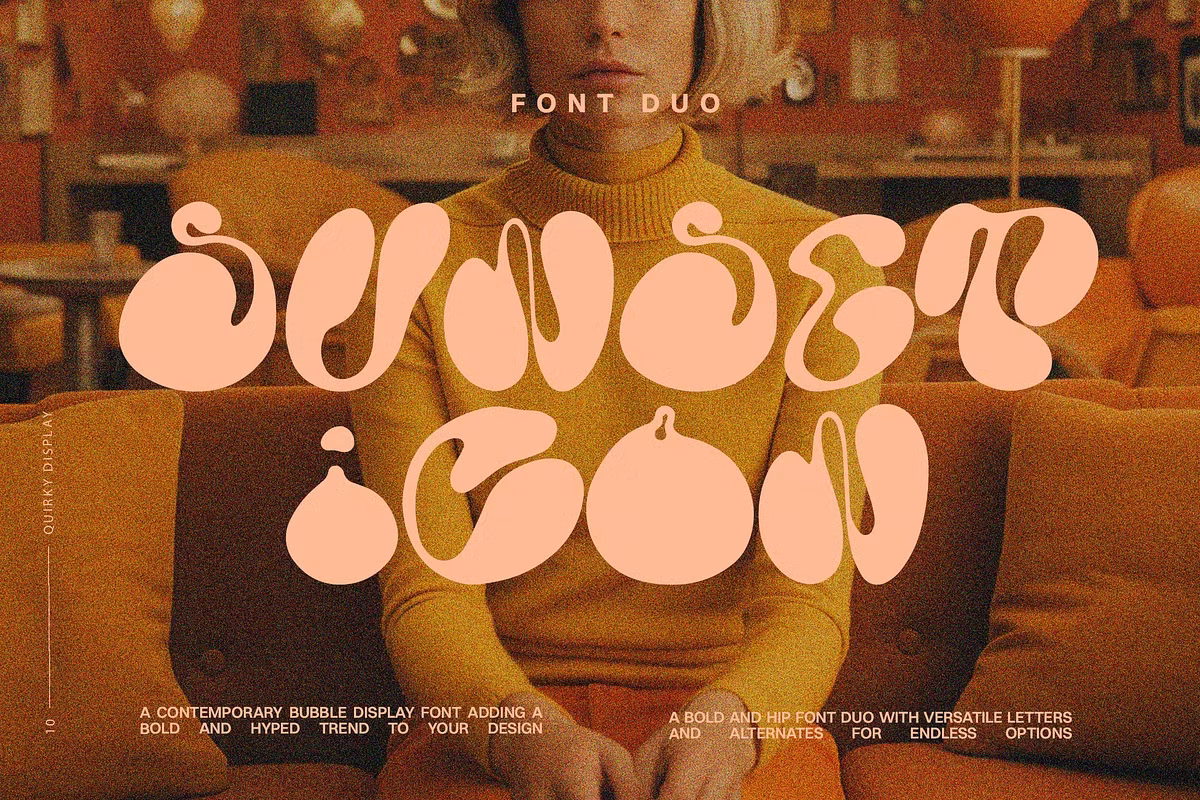
Sunset Icon Retro Bubble Font Duo Free Download
Sunset Icon Retro Bubble Font Duo Free Download is a playful and vibrant font pair that blends retro bubble lettering with a fun, contemporary icon style. Perfect for creating nostalgic, eye-catching designs, this duo is ideal for branding, event posters, product packaging, social media graphics, and anything that requires a bold, retro flair.
The font duo includes a bold bubble-style font alongside matching icons, giving you the flexibility to create unique, cohesive designs with a strong vintage aesthetic. Whether you’re designing for a retro-themed event, crafting fun promotional material, or adding a playful touch to your brand, Sunset Icon Retro Bubble Font Duo delivers the perfect vibe.